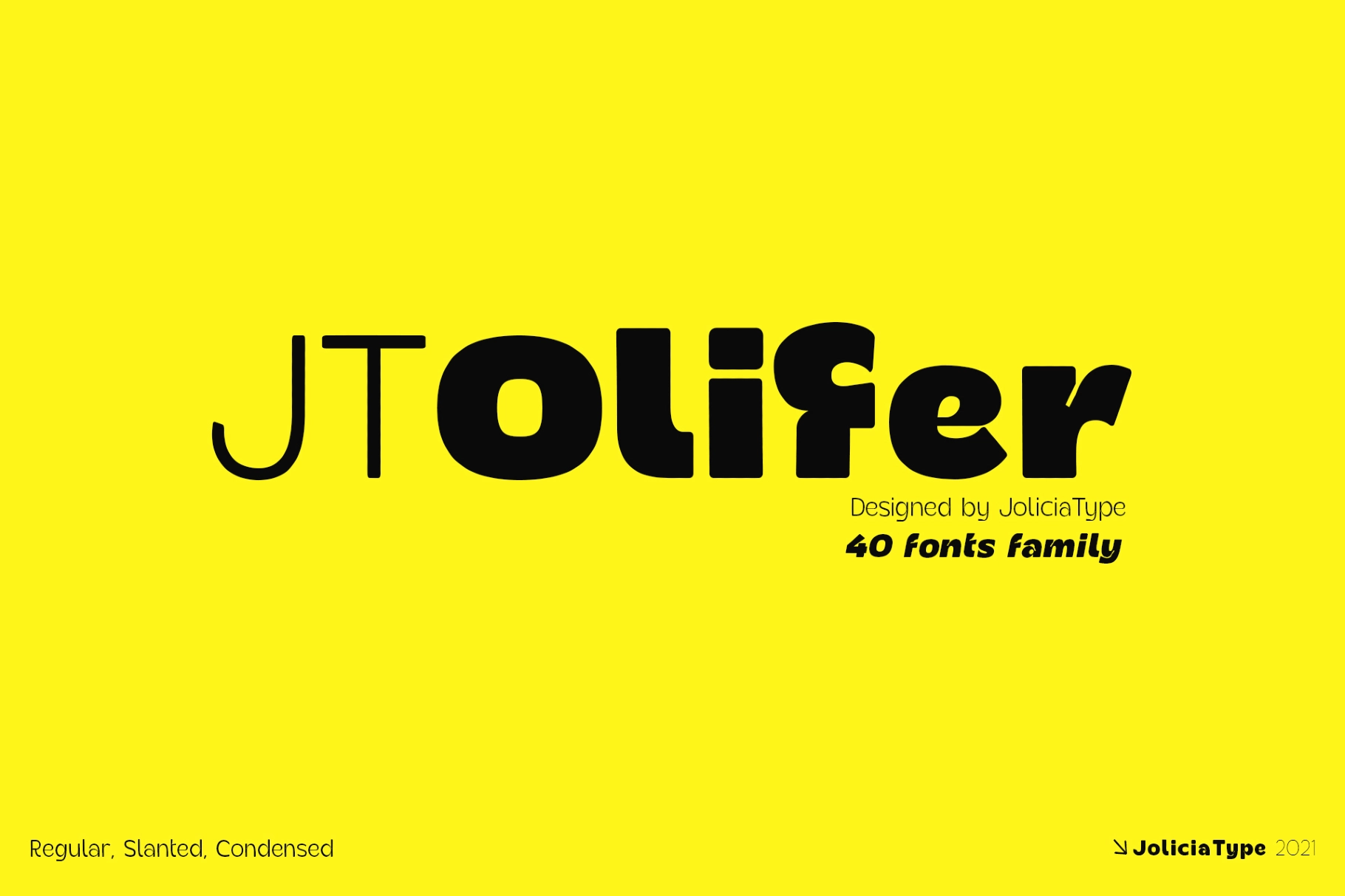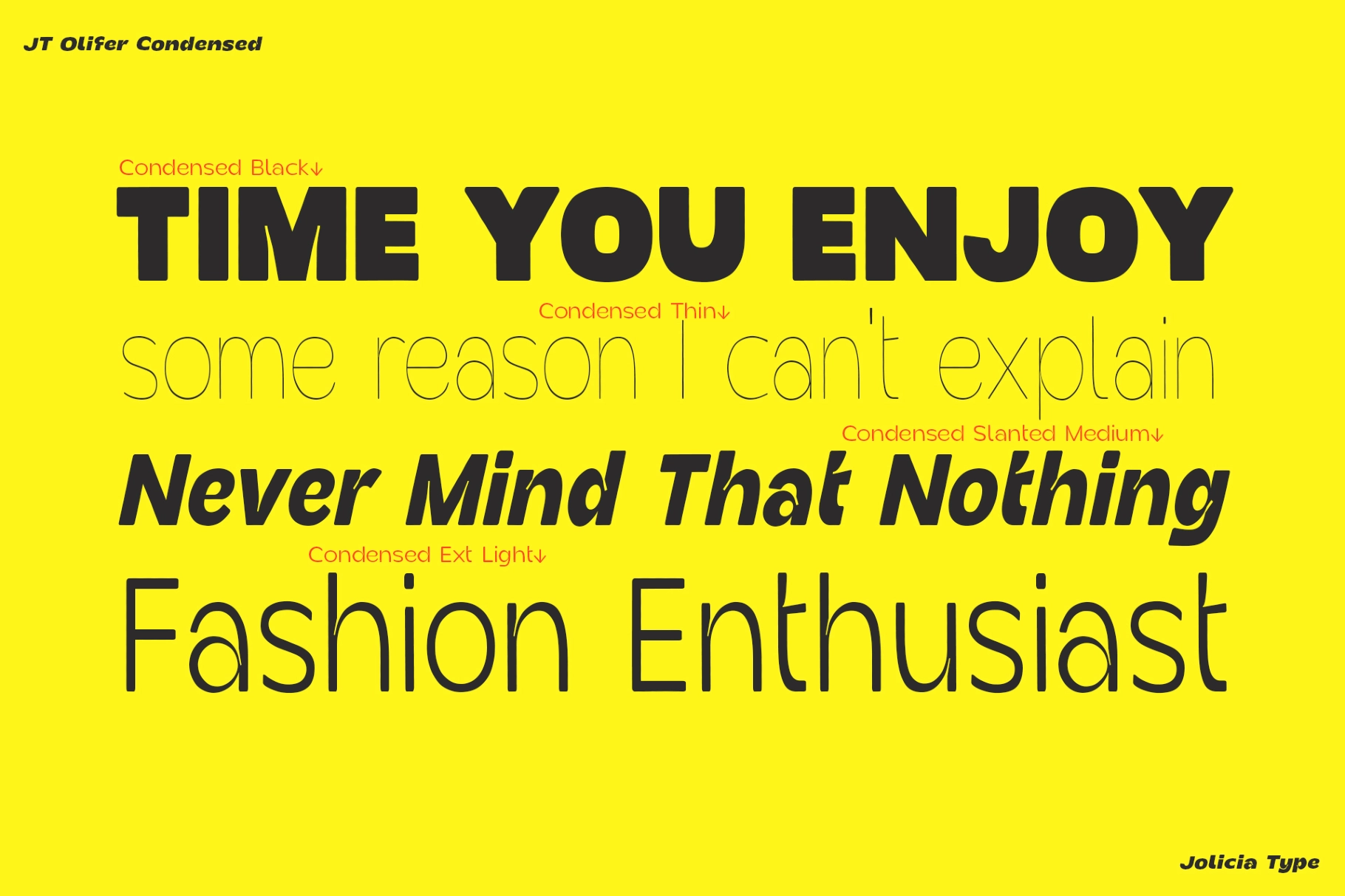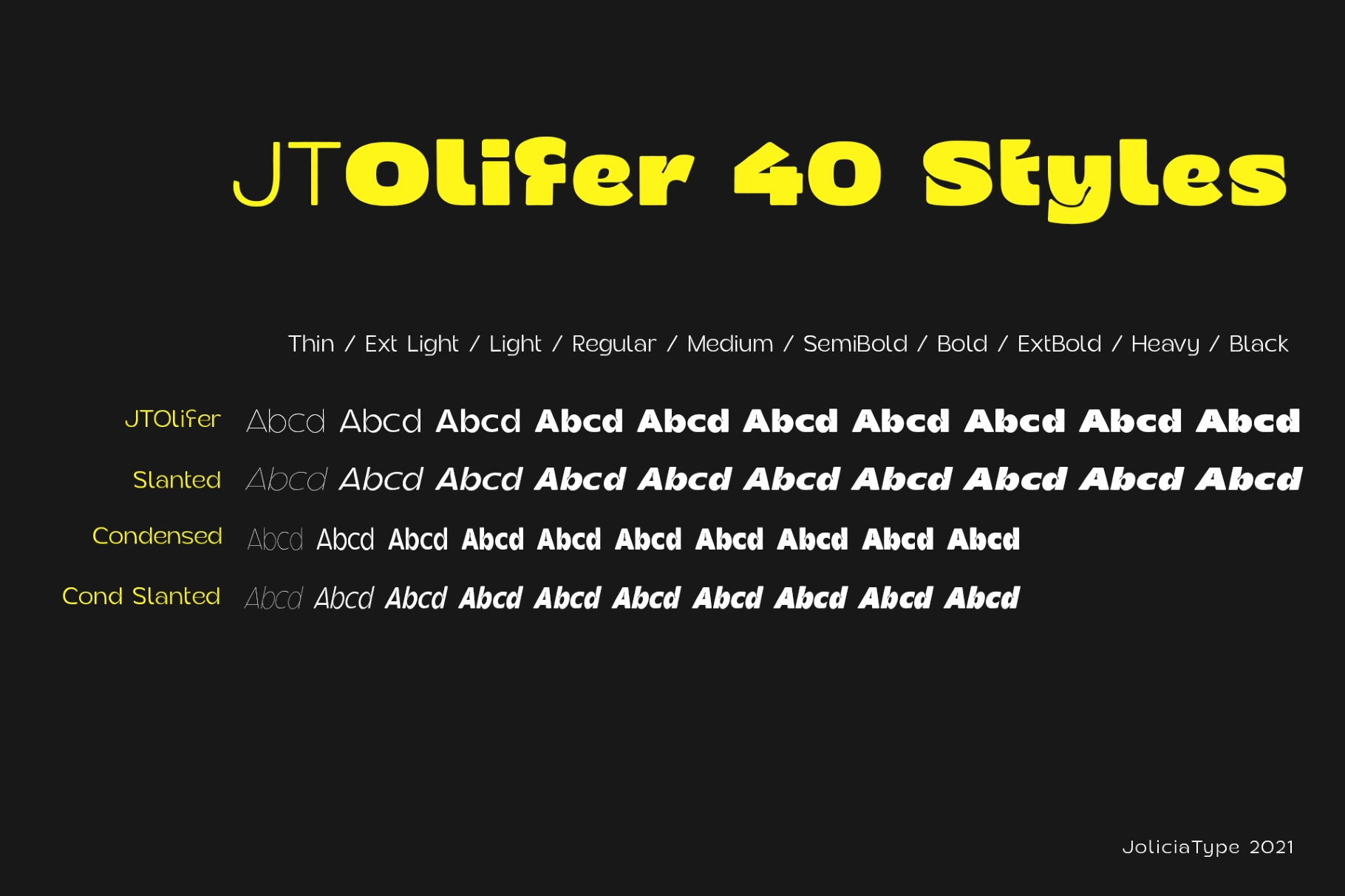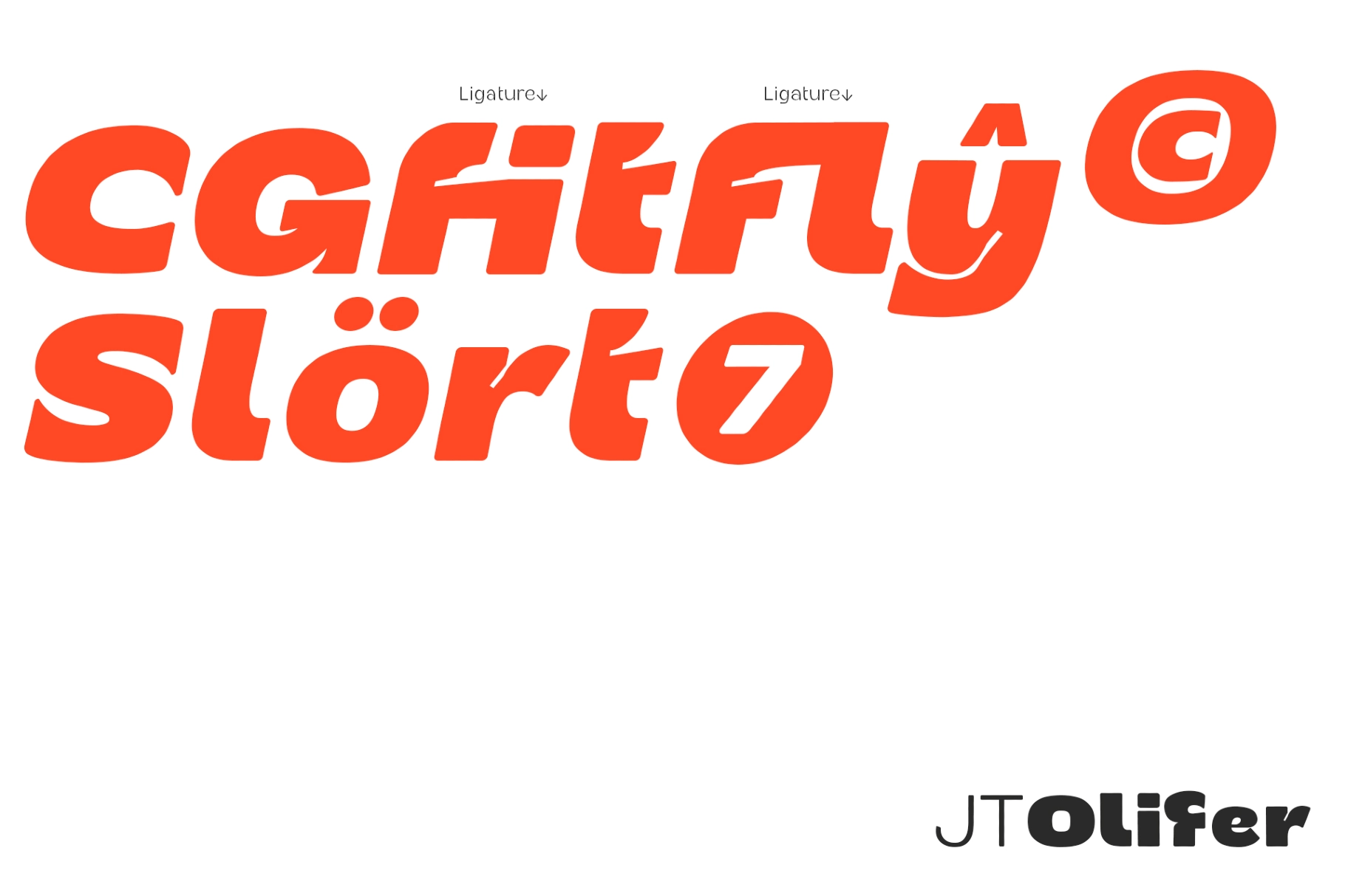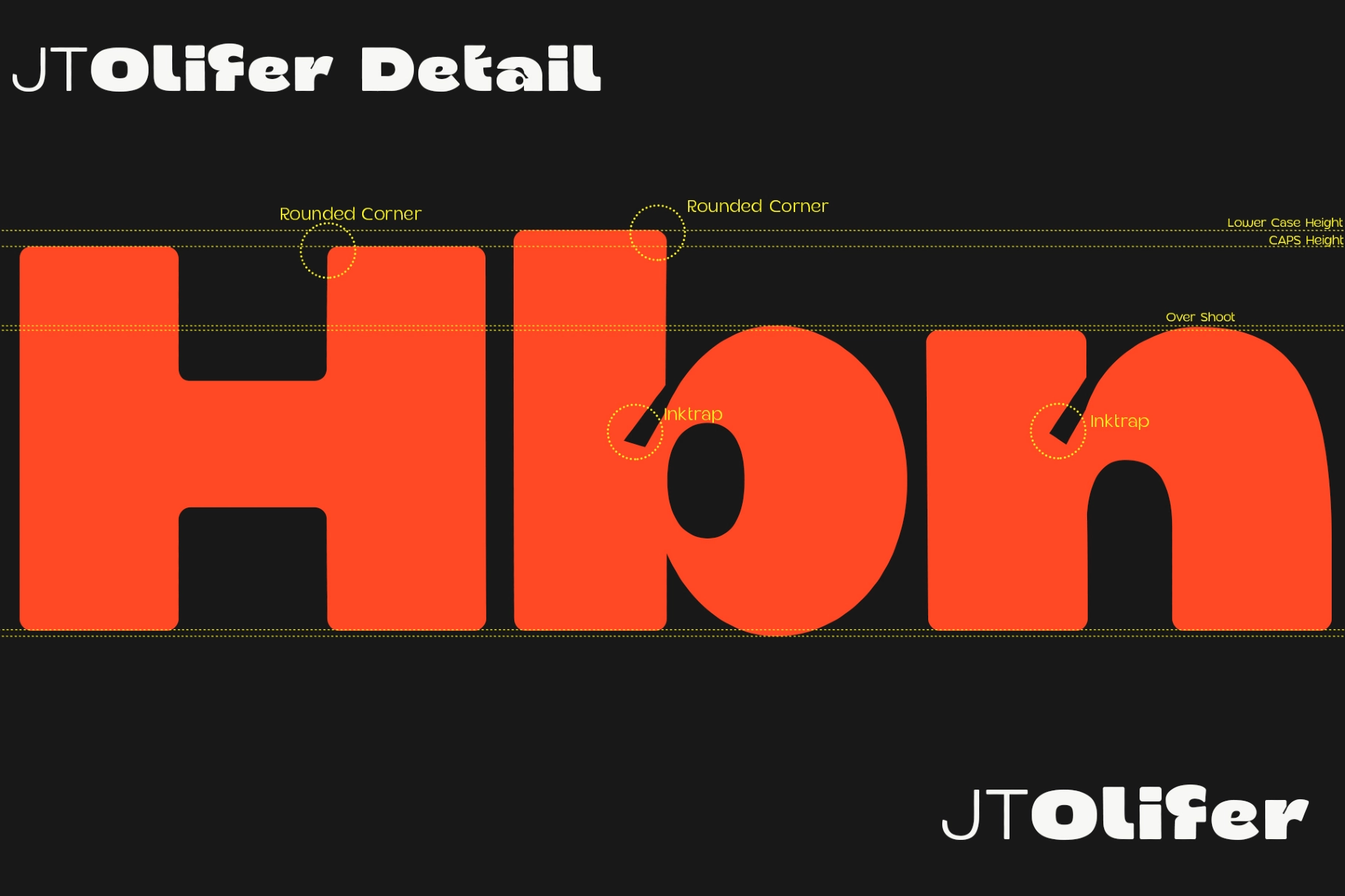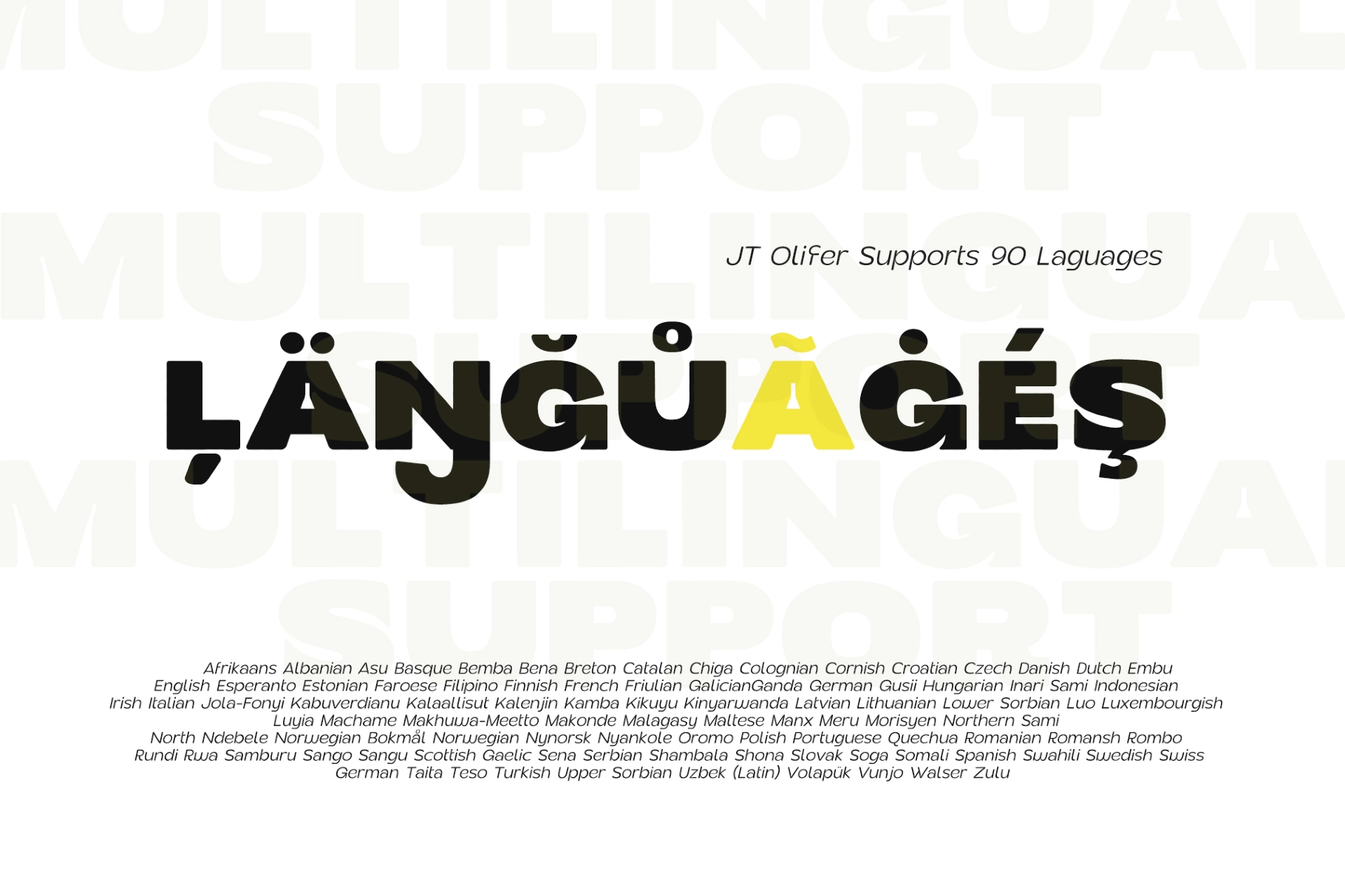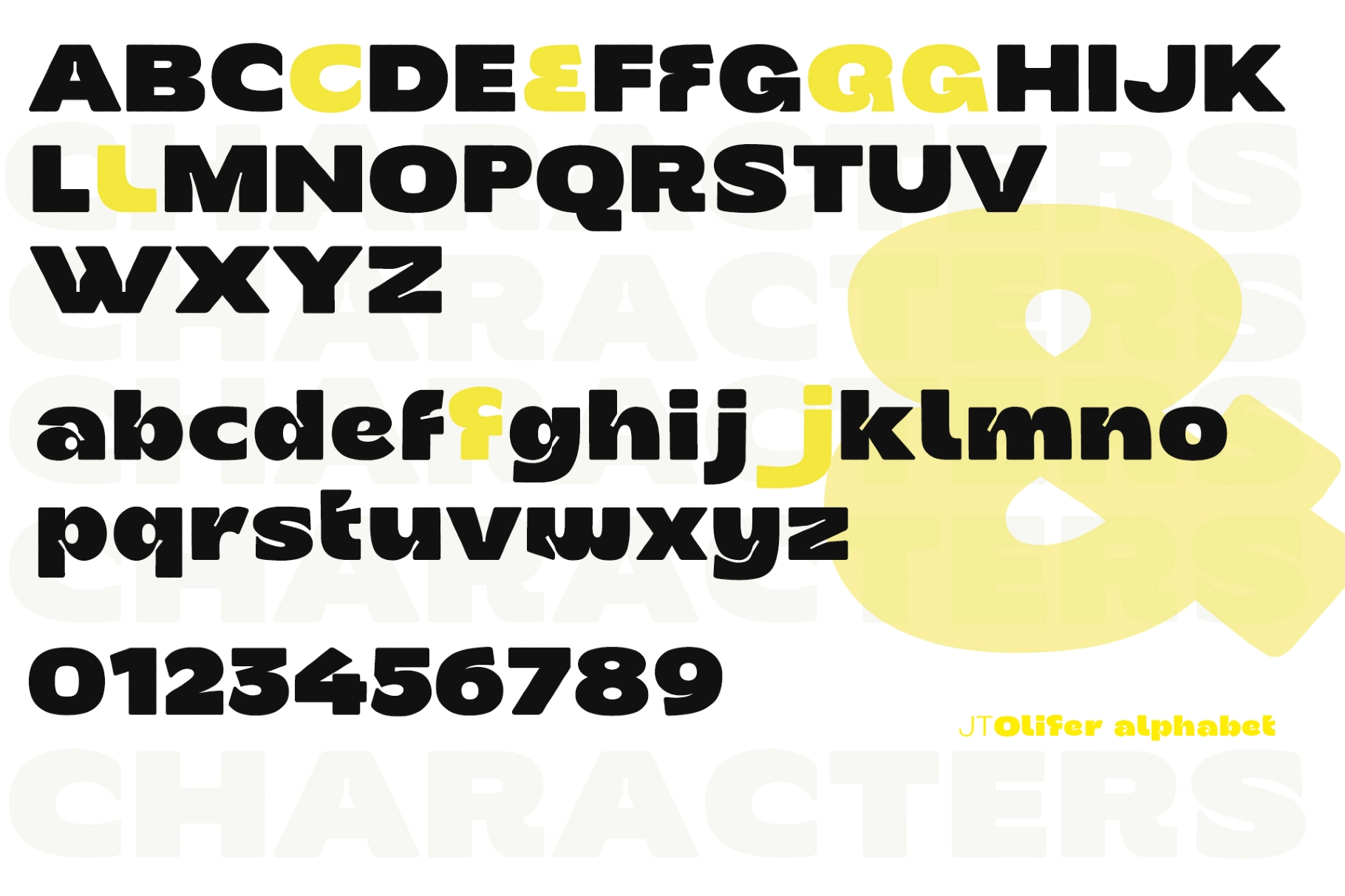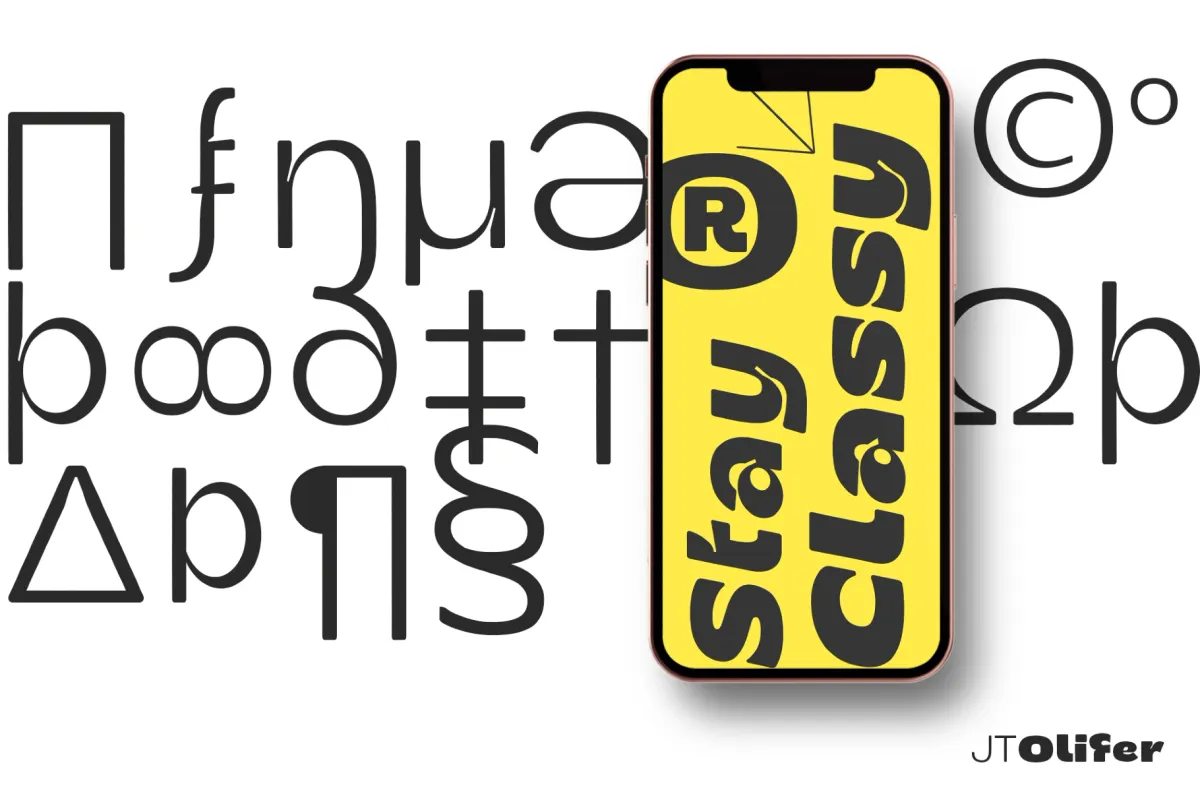
JT Olifer - 40 Font Family
JT Olifer is typeface is a font family created in October 2021 and informed by a modern typographic approach. Its design emphasizes carefully refined details, with rounded corners and subtle ink-trap accents to create a distinctive character across the glyph set. Legibility is treated as a key requirement, and the family includes 40 styles to support flexible selection for different visual needs.
The font combines aesthetic, contemporary, and modern nuances. It also includes alternate glyphs designed to feel friendly and understated; for example, an alternate “f” features a more circular, smoother form.